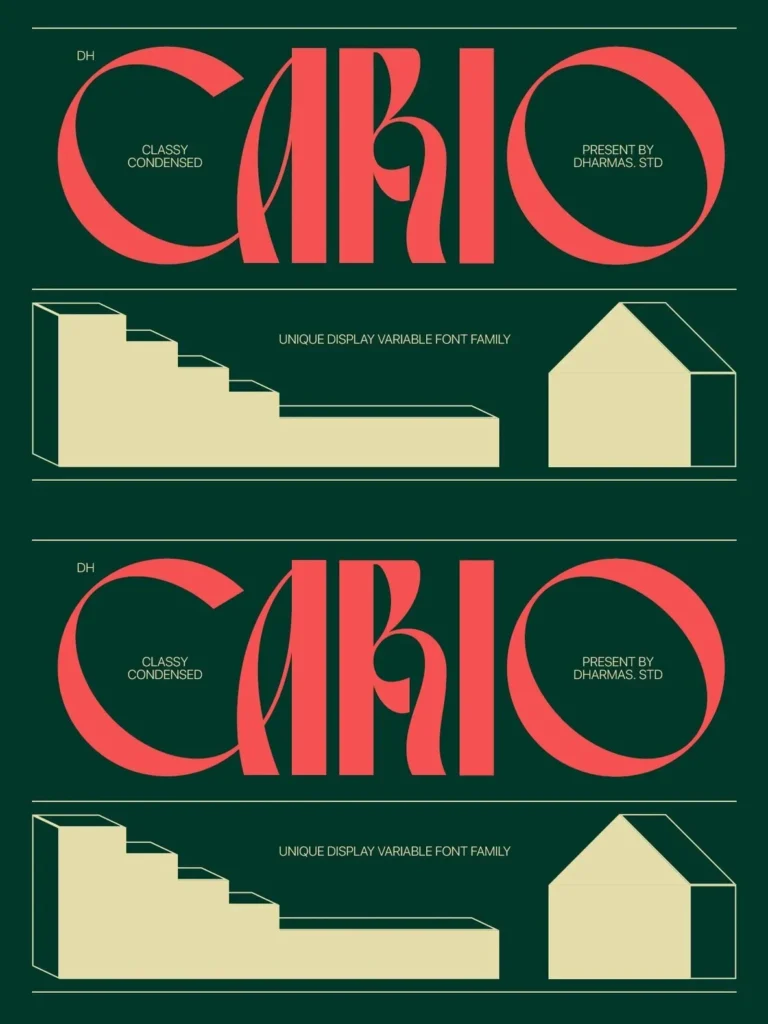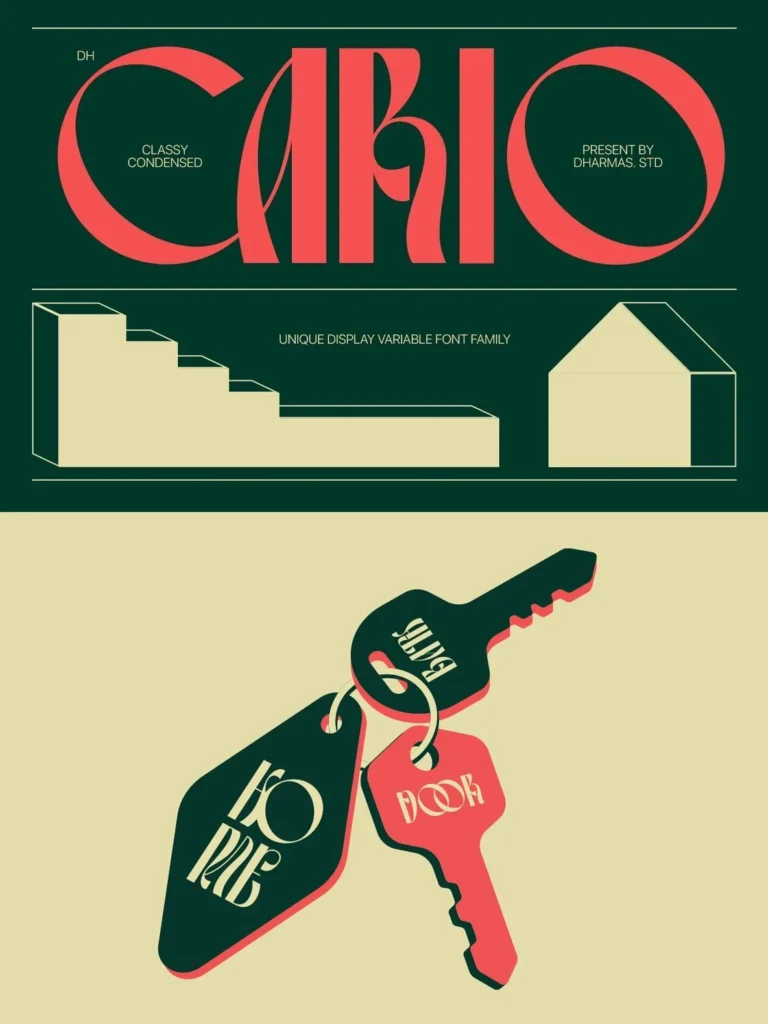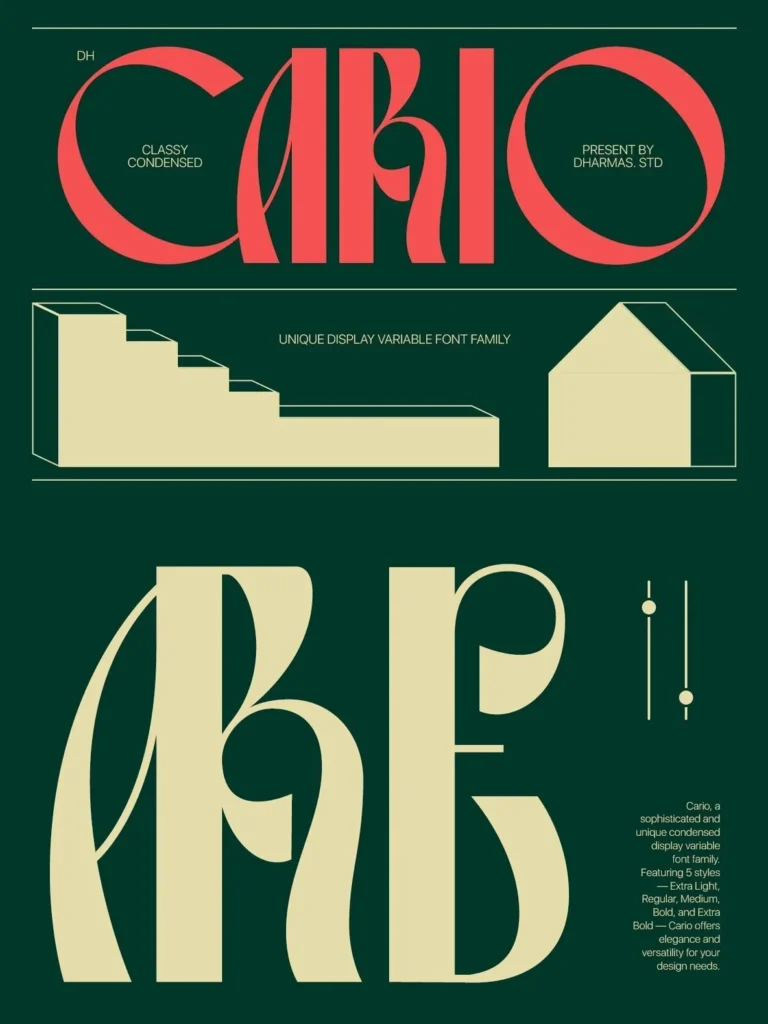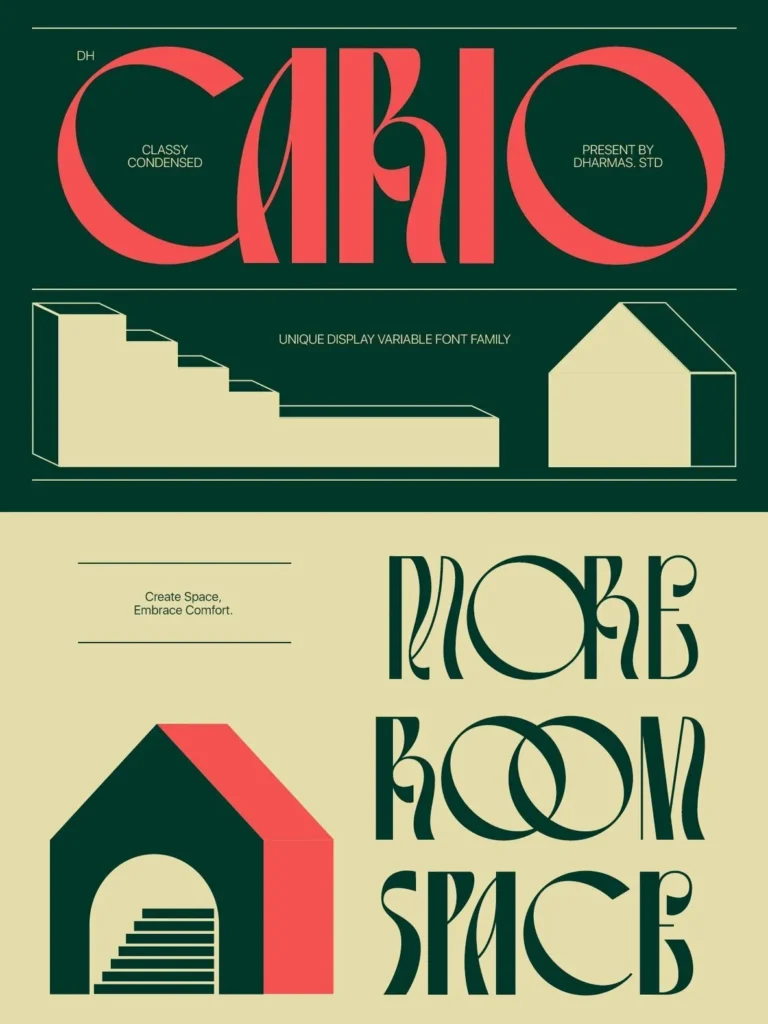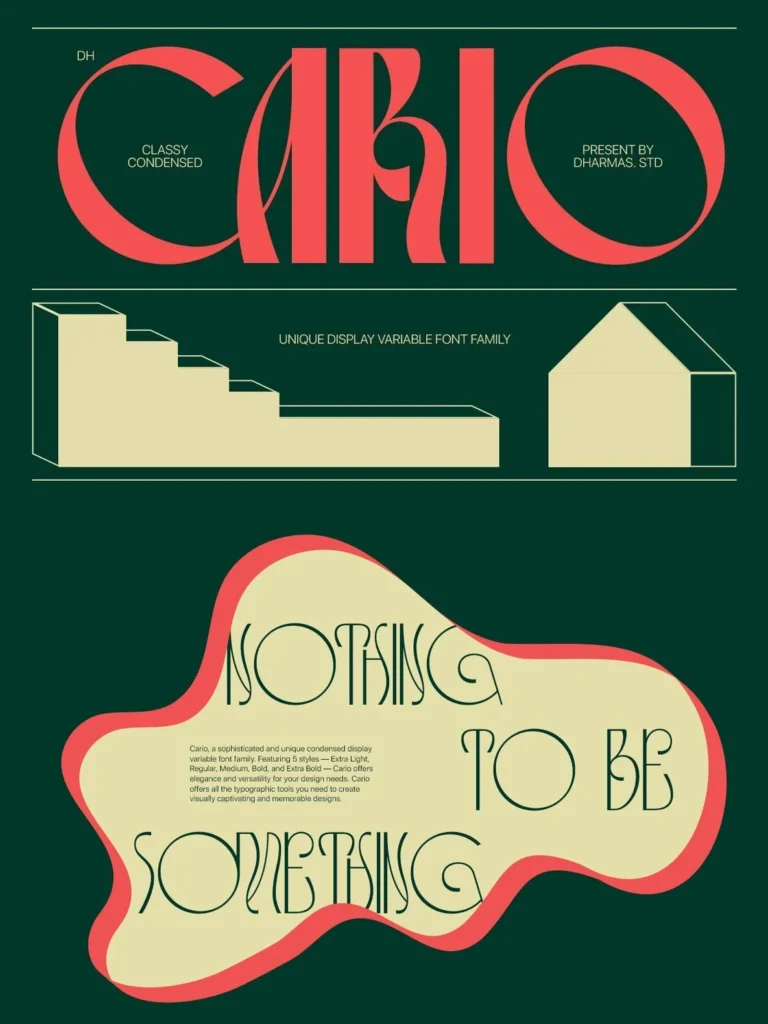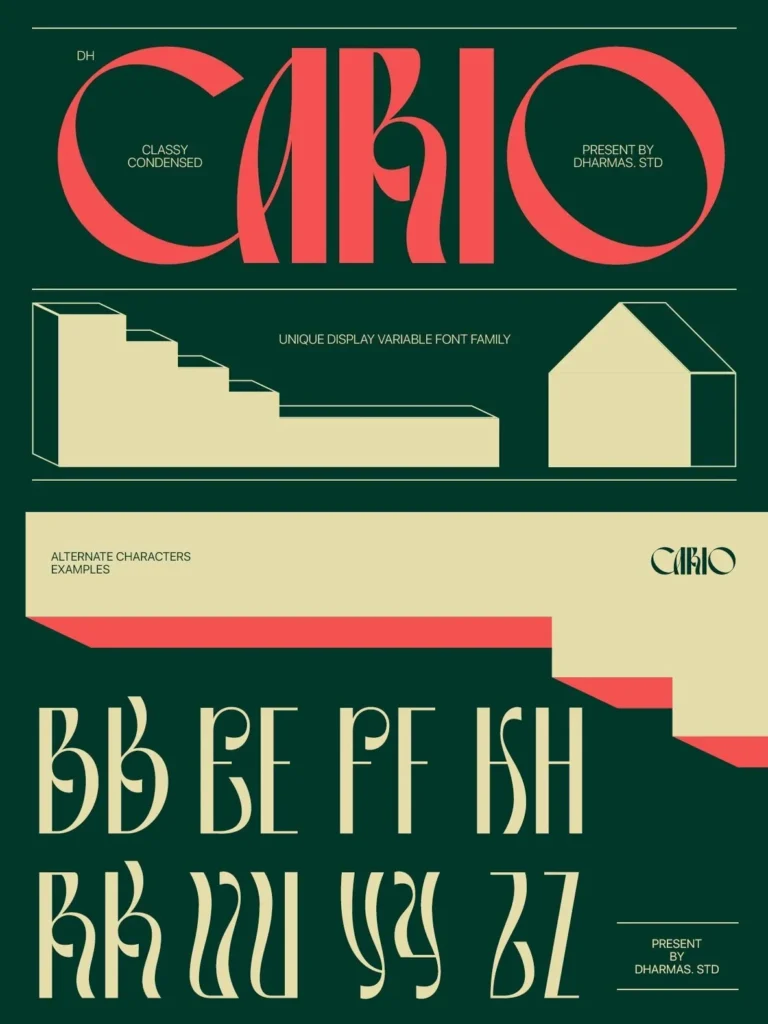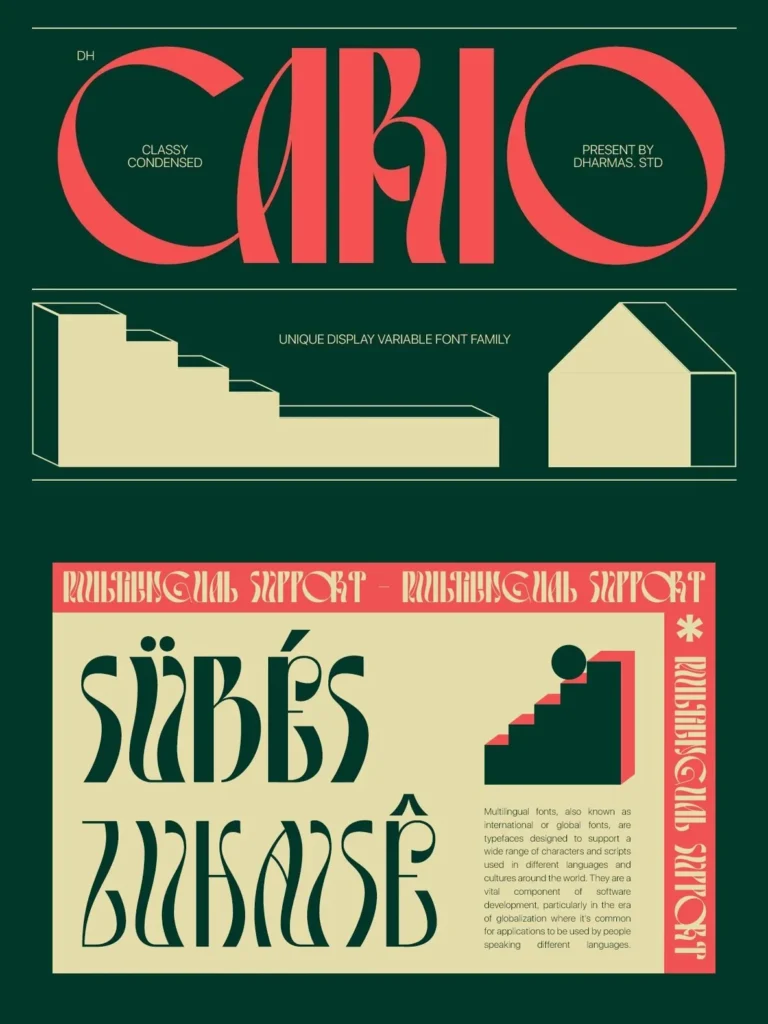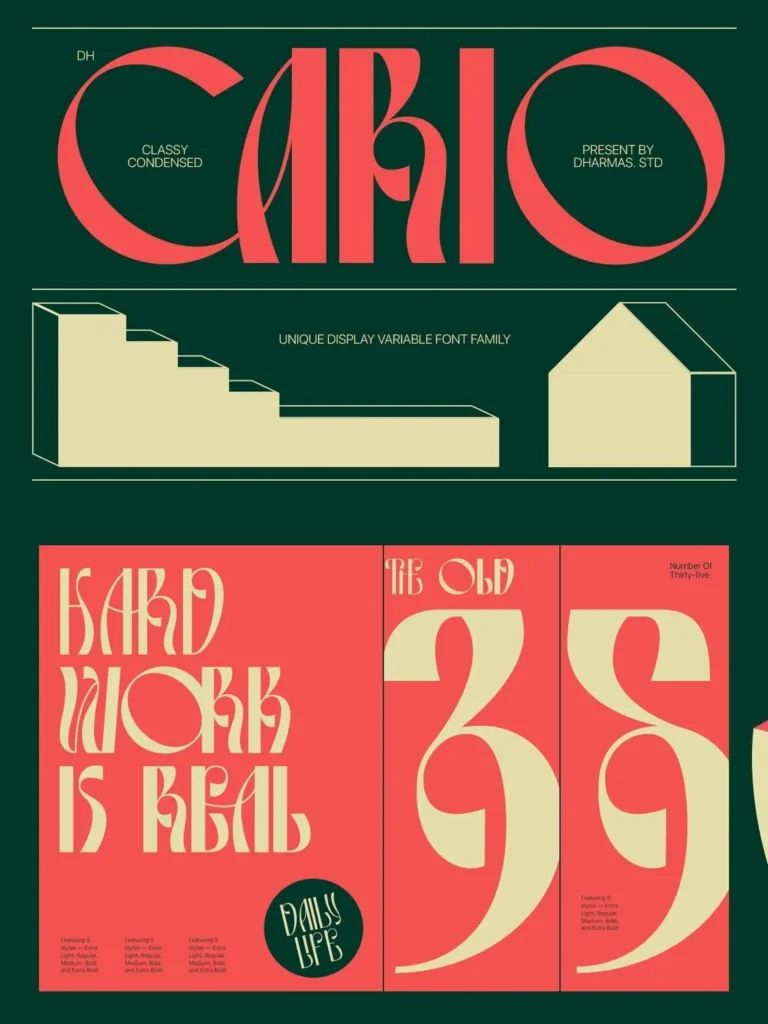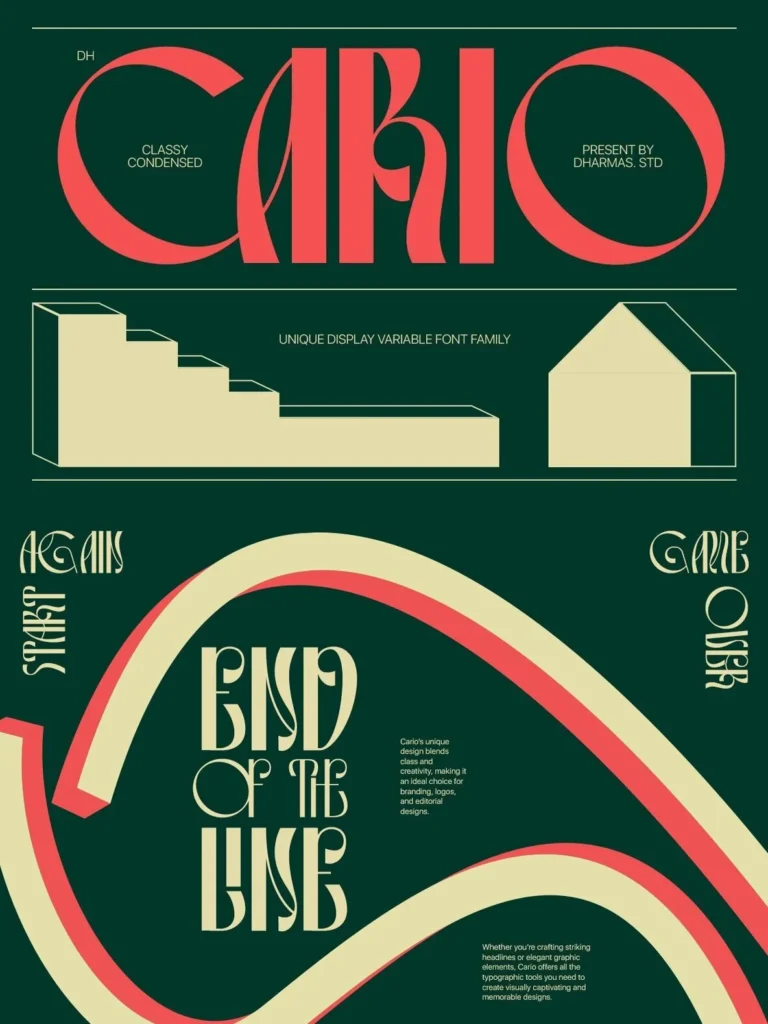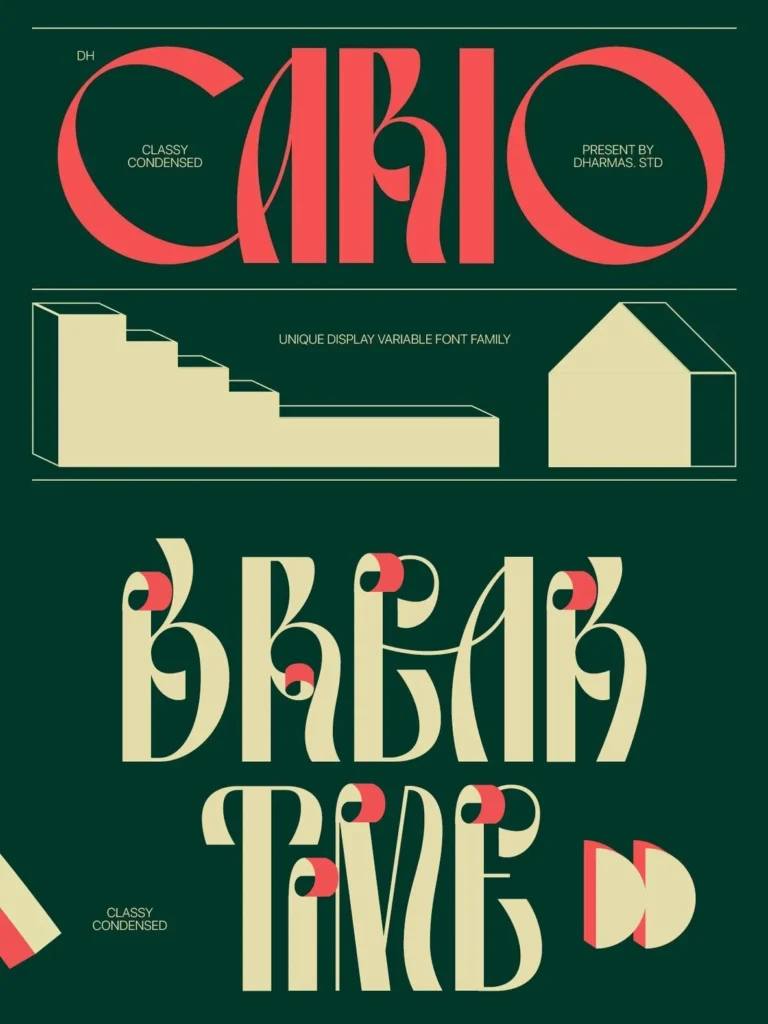
Dh Cario — Display With Poised Detail
Dh Cario is a display variable typeface designed by Dharmas Studio for elegant, memorable visual work. It includes 5 weight variations: Thin, Light, Regular, Semi Bold, and Bold. With 85 unique ligatures and alternates, the typeface gives headlines, posters, brand logos, aesthetic moodboards, and beauty branding a modern and captivating tone.
Dh Cario also suits Instagram templates, Canva designs, and headline presentations. Its ligatures and alternates help typography feel personal and distinctive while keeping a polished, professional character. The font works across common design and writing tools, making it a practical choice for refined branding, social content, and presentation-led design.
5 Weights: Thin, Light, Regular, Semi Bold, and Bold
85+ Unique Alternates and Ligatures
Letters, numbers, symbols, punctuation, special alternates